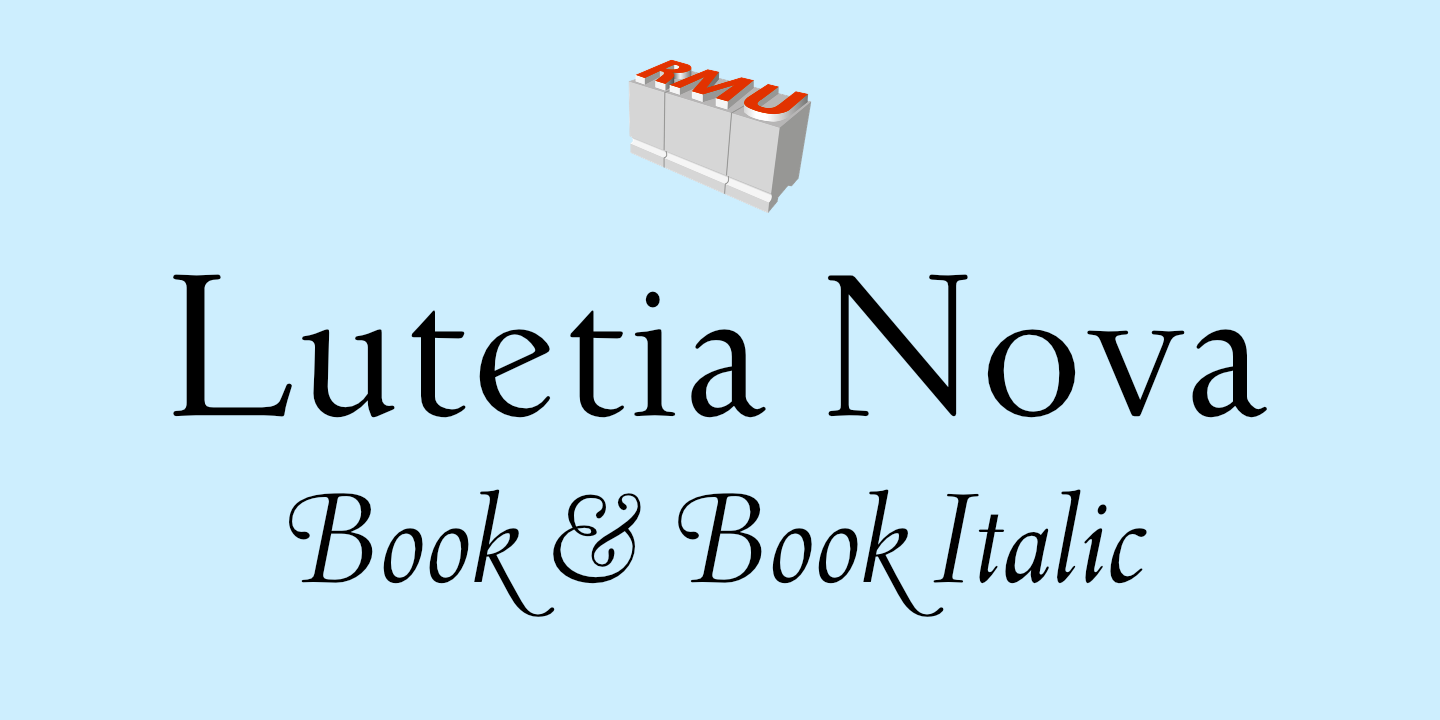
Lutetia Nova Font is ideal for Parisian luxury boutiques, French cultural institutions, sophisticated European travel marketing, elegant French cuisine branding, prestigious art galleries, refined fashion magazines, distinguished wine labels, cultural heritage exhibitions, upscale French hospitality, and authentic Parisian lifestyle communications. This sophisticated typeface excels in applications where French elegance and European cultural refinement need to be communicated with Parisian sophistication and continental charm that embodies the essence of French cultural heritage and the timeless elegance found in authentic Parisian design traditions and European artistic excellence.
What makes Lutetia Nova Font exciting is its remarkable ability to capture the essence of Parisian sophistication and French cultural refinement through its elegantly crafted letterforms that seem to embody the artistic heritage and cultural sophistication that make Paris the eternal city of light and cultural excellence. The font reflects the spirit of French elegance with its refined construction and culturally sophisticated proportions that suggest the careful attention to beauty and the cultivated sensibility that characterizes authentic French design and Parisian artistic tradition. Its thoughtfully designed character details and culturally respectful personality create an atmosphere of European sophistication that resonates with French cultural institutions, luxury brands, and organizations who understand the importance of honoring French heritage while celebrating the timeless appeal of Parisian elegance.
The Lutetia Nova Font family typically includes Light, Regular, Medium, and Bold weights, each maintaining the signature French characteristics and Parisian sophistication. Some versions offer graceful Italic variants that enhance the flowing European elegance, comprehensive international character sets with French language support, and specialized elements that honor French typographic traditions. The family may also include condensed styles for efficient French layouts and display cuts optimized for maximum cultural impact in French and European applications requiring authentic Parisian credibility and continental sophistication.
Whether you're creating French cultural brands, Parisian luxury materials, or European heritage communications, Lutetia Nova Font Free Download delivers the perfect French sophistication your culturally-conscious projects deserve. Its Parisian character and European styling make it an invaluable choice for French institutions, luxury European brands, and cultural organizations working in French heritage, Parisian luxury markets, and European cultural celebration sectors where authentic French elegance and respectful cultural representation are essential for building meaningful connections with French culture and celebrating the enduring beauty of Parisian artistic traditions.